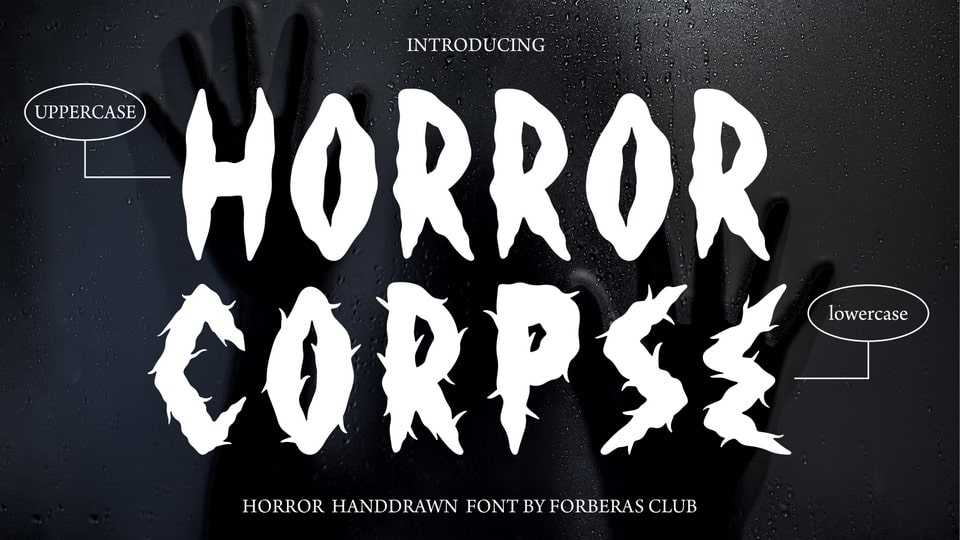
Download Horror Corpse font, a hand lettered font especially designed for Halloween, gaming, scary projects. Horror Corpse font is perfect for creating modern and fancy designs such as logos, packaging, editorials and more